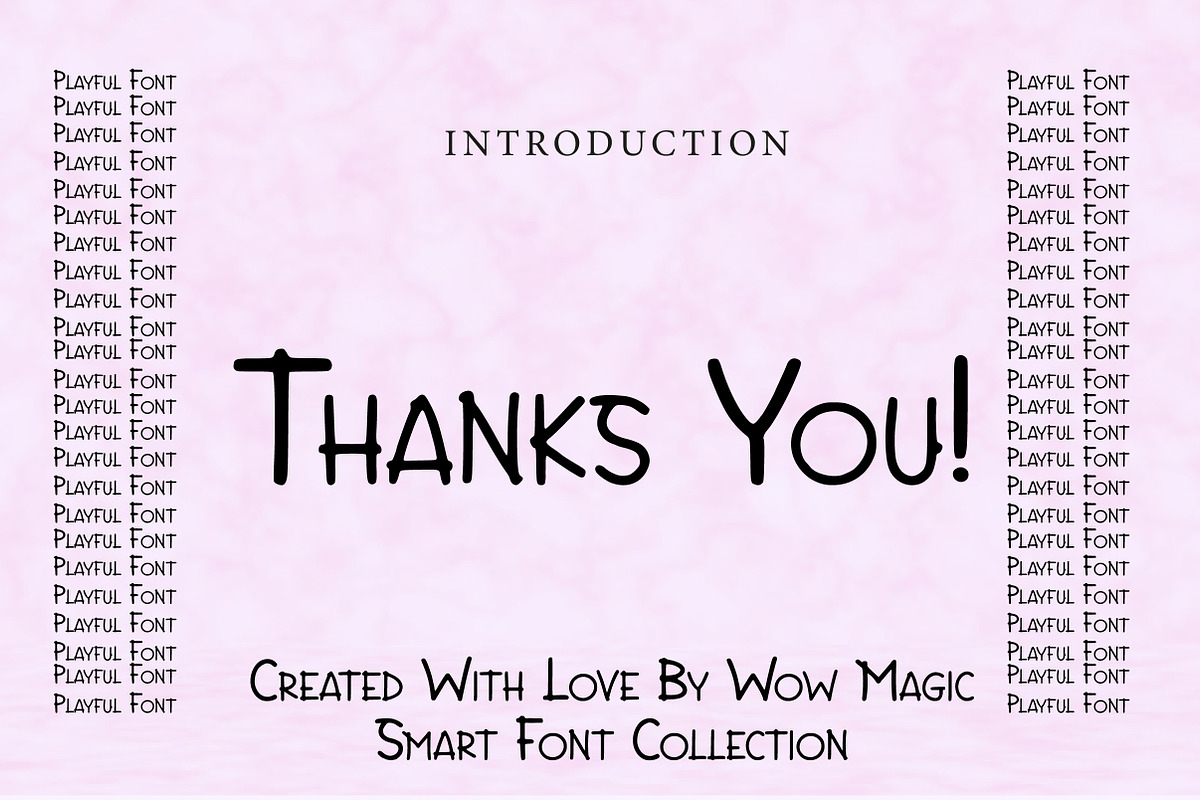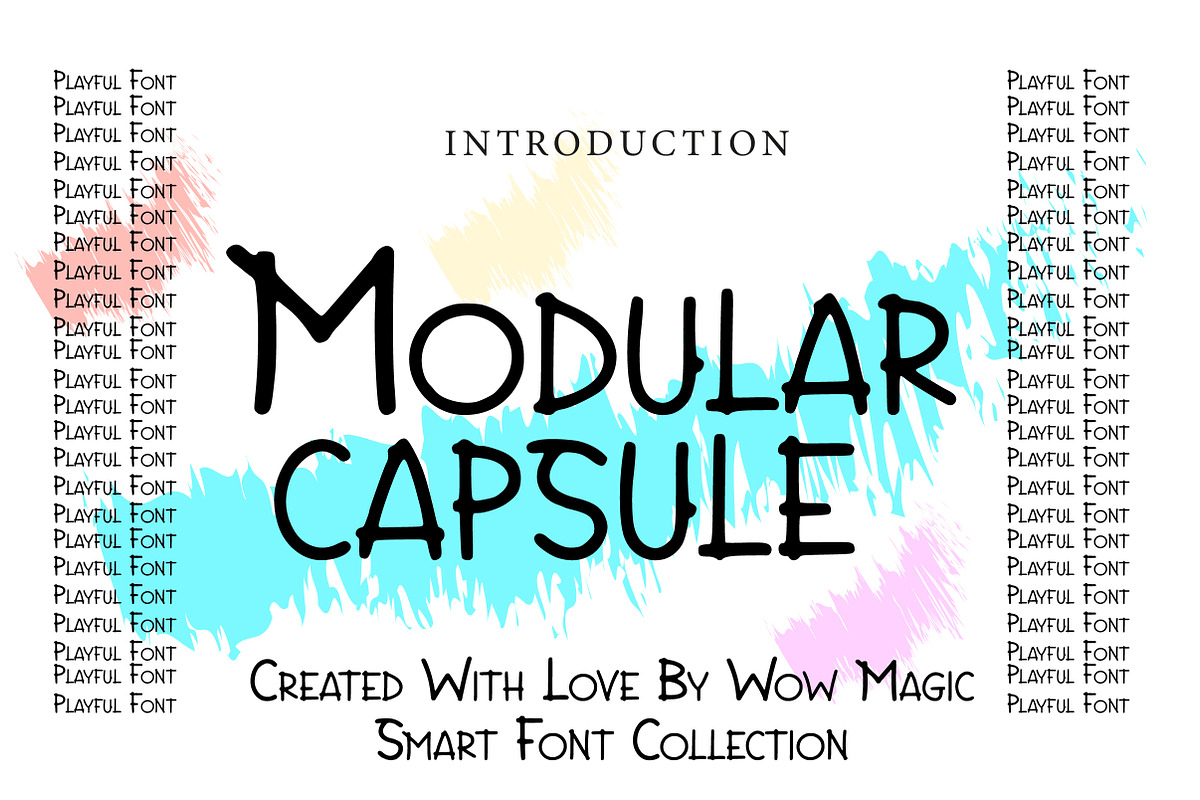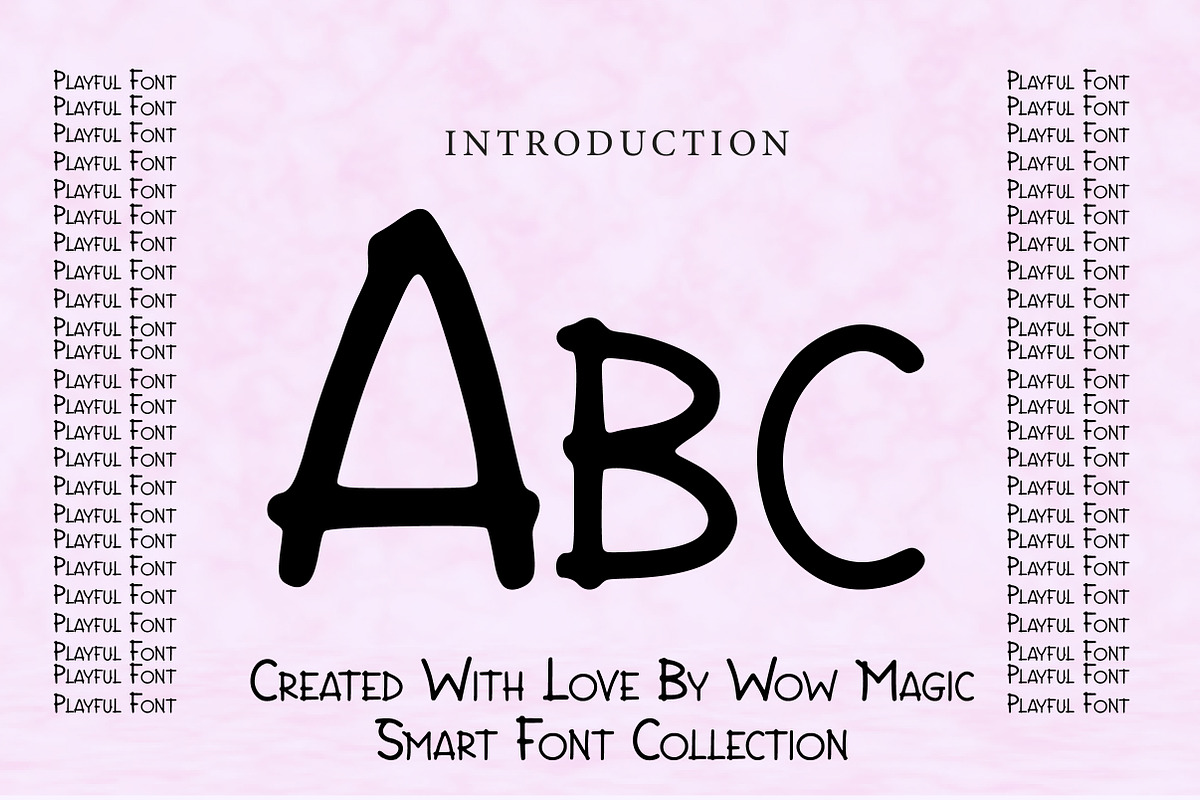
Modular Capsule
Modular Capsule is a clean and modern rounded display font inspired by modular shapes and capsule-style forms. Its smooth curves, minimal strokes, and geometric structure create a friendly and futuristic typographic style.
This typeface is ideal for technology branding, modern logos, posters, UI designs, social media graphics, and creative branding projects. The balanced rounded shapes give the font a contemporary look while maintaining excellent readability.
Whether you're designing startup branding, app interfaces, digital posters, or modern packaging, Modular Capsule delivers a sleek and innovative typographic appearance that works beautifully in both print and digital environments.
Perfect For: • Tech Branding • Startup Logos • Modern Posters • UI & App Design • Social Media Graphics • Packaging Design • Creative Branding Projects